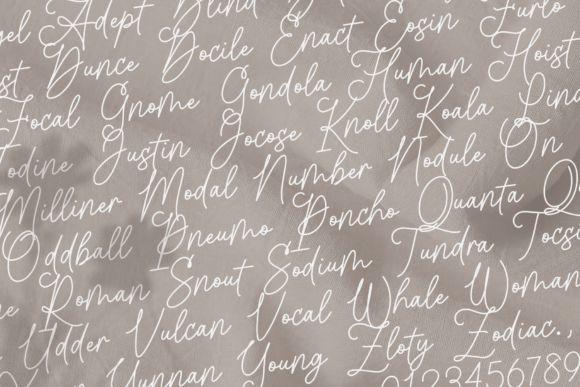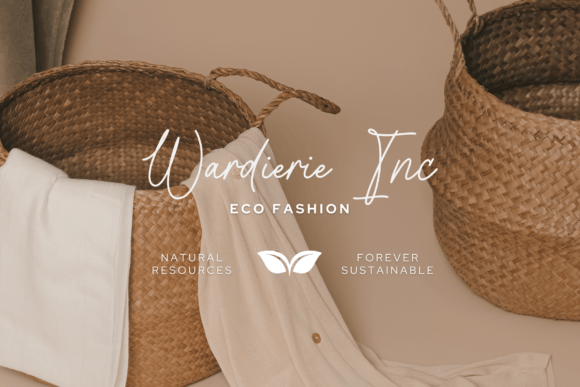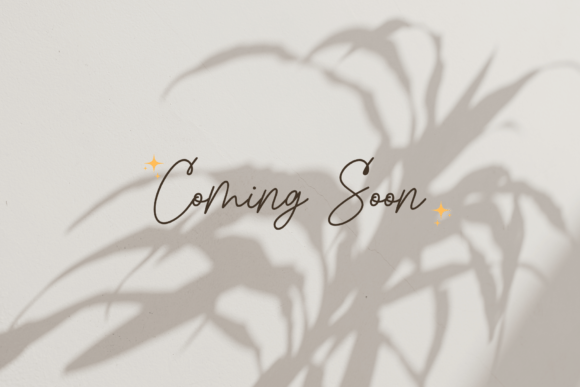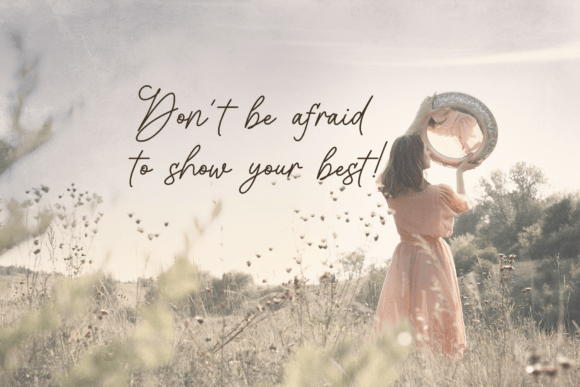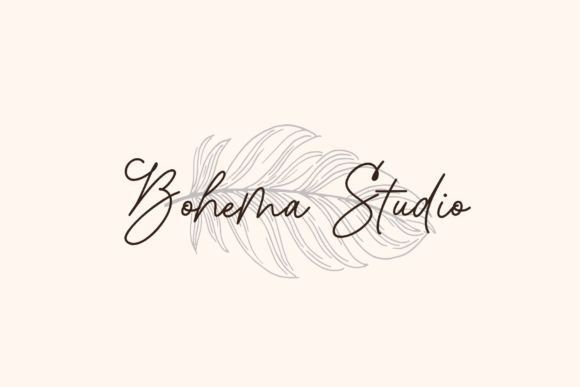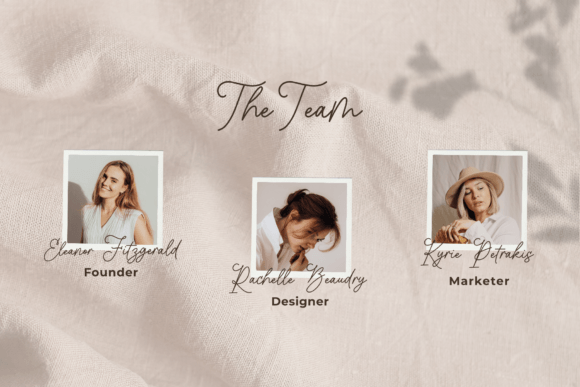
Astutely Font: Elevate Your Designs with Elegance and Sophistication
Are you on the hunt for a font that exudes refinement, poise, and a touch of handcrafted charm? Look no further than Astutely, an elegant, sketch, and single-line handwritten font that is sure to capture your heart. With its distinct and timeless style, Astutely is the perfect choice for designers and crafters looking to create spectacular designs that stand out from the crowd.
The Characteristics of Astutely Font
So, what sets Astutely apart from other fonts? Here are a few key characteristics that make it a standout:
- Elegant and Refined: Astutely boasts a sophisticated and polished aesthetic, making it ideal for designs that require a level of luxury and refinement.
- Sketch and Single-Line Handwritten: The font’s hand-drawn, single-line design gives it a personal and artistic feel, perfect for adding a touch of whimsy and personality to your designs.
- Distinct and Timeless: Astutely’s unique style is both modern and classic, ensuring that your designs will remain relevant and stylish for years to come.
Why Designers and Crafters Love Astutely
Whether you’re a seasoned designer or a crafty DIY enthusiast, Astutely is an excellent choice for a wide range of projects. Here are just a few reasons why:
- Versatility: Astutely is suitable for a variety of design applications, from branding and logos to invitations, packaging, and more.
- Emotional Connection: The font’s handcrafted, personal feel helps to create an emotional connection with your audience, making your designs more relatable and engaging.
- Easy to Read: Despite its elegant and refined appearance, Astutely remains highly legible, ensuring that your message is conveyed clearly and effectively.
Tips for Using Astutely Font in Your Designs
To get the most out of Astutely, here are a few tips to keep in mind:
- Pair with Contrasting Fonts: Combine Astutely with bold, sans-serif fonts to create visual interest and add depth to your designs.
- Experiment with Colors: Astutely looks stunning in a range of colors, from rich jewel tones to soft pastels. Don’t be afraid to get creative and try out different hues.
- Pay Attention to Spacing: To maintain the font’s elegant appearance, be sure to leave sufficient space between lines and words.
Where to Use Astutely Font
So, where can you use Astutely to elevate your designs? Here are a few ideas to get you started:
- Branding and Logos: Create a lasting impression with a custom logo or branding suite featuring Astutely.
- Invitations and Stationery: Add a touch of elegance to your wedding invitations, business cards, or letterhead.
- Packaging and Labels: Stand out on store shelves with eye-catching packaging and labels that showcase Astutely’s unique style.
In conclusion, Astutely font is an exceptional choice for designers and crafters seeking to add a touch of elegance and sophistication to their work. With its refined, handcrafted aesthetic and versatile design, Astutely is sure to become a go-to font in your collection. So why wait? Fall in love with Astutely’s distinct and timeless style, and use it to create spectacular designs that leave a lasting impression.